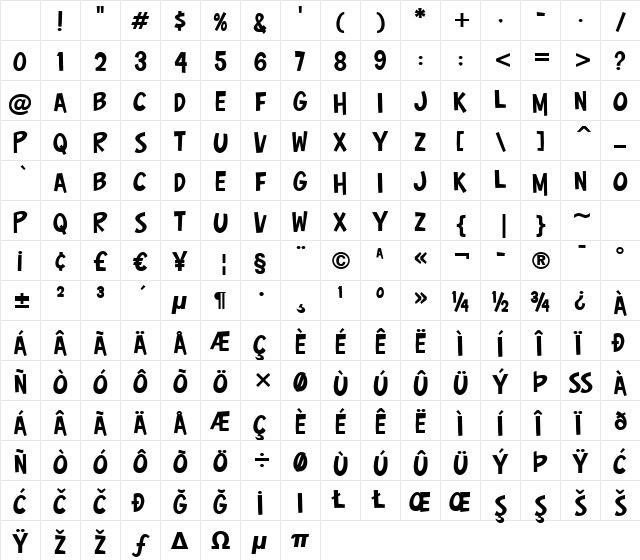
Surfer Shop BTN Regular Free Font
Surfer Shop BTN Regular
Surfer Shop BTN Family
Surfer Shop BTN Regular
Design Context for Surfer Shop BTN
Surfer Shop BTN is a composed and adaptable typeface that performs quietly and consistently across a wide range of design contexts.
Pro Tip: Use Surfer Shop BTN in both headline and body roles to test its range before committing to a single application.